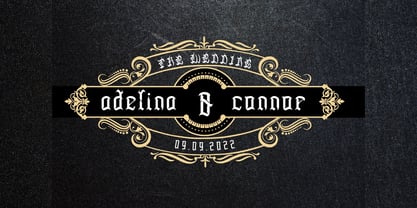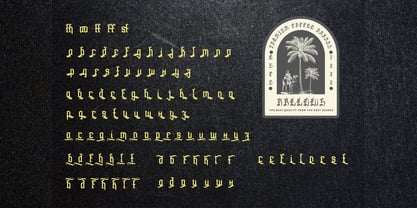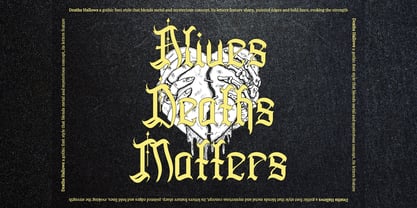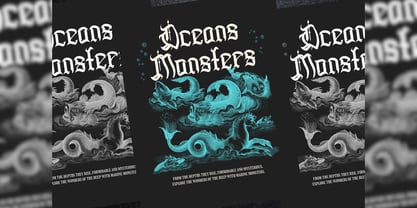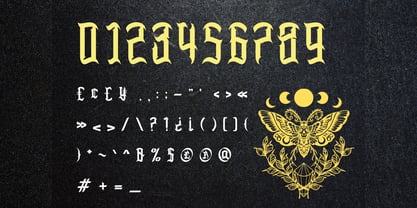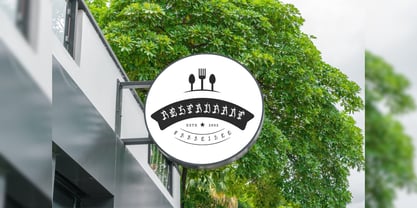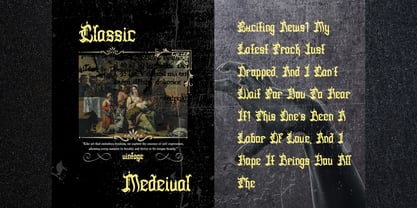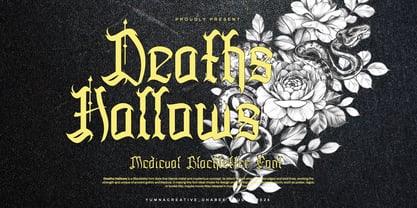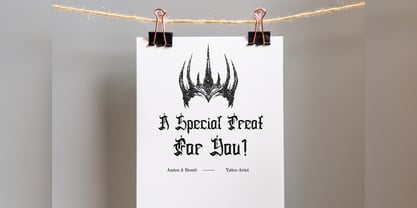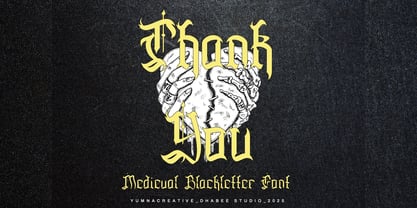
Deaths Hallows
The Deaths Hallows Font Family was designed by Dhimas Habibie and published by Yumnacreative. Deaths Hallows contains 1 styles. More about this family
Introducing Deaths Hallows - Medieval Blackletter Font
Deaths Hallows - Medieval Blackletter Font is a bold blackletter fraktur display font that merges traditional Gothic aesthetics with modern impact. Its intricate letterforms feature sharp angles, dramatic strokes, and striking contrasts, embodying strength, authority, and historical charm. The bold weight enhances its commanding presence, making it ideal for designs that demand attention and sophistication
FEATURES
- Uppercase and Lowercase letters
- Alternate and Ligature
- Numbering and Punctuations
- Multilingual Supports